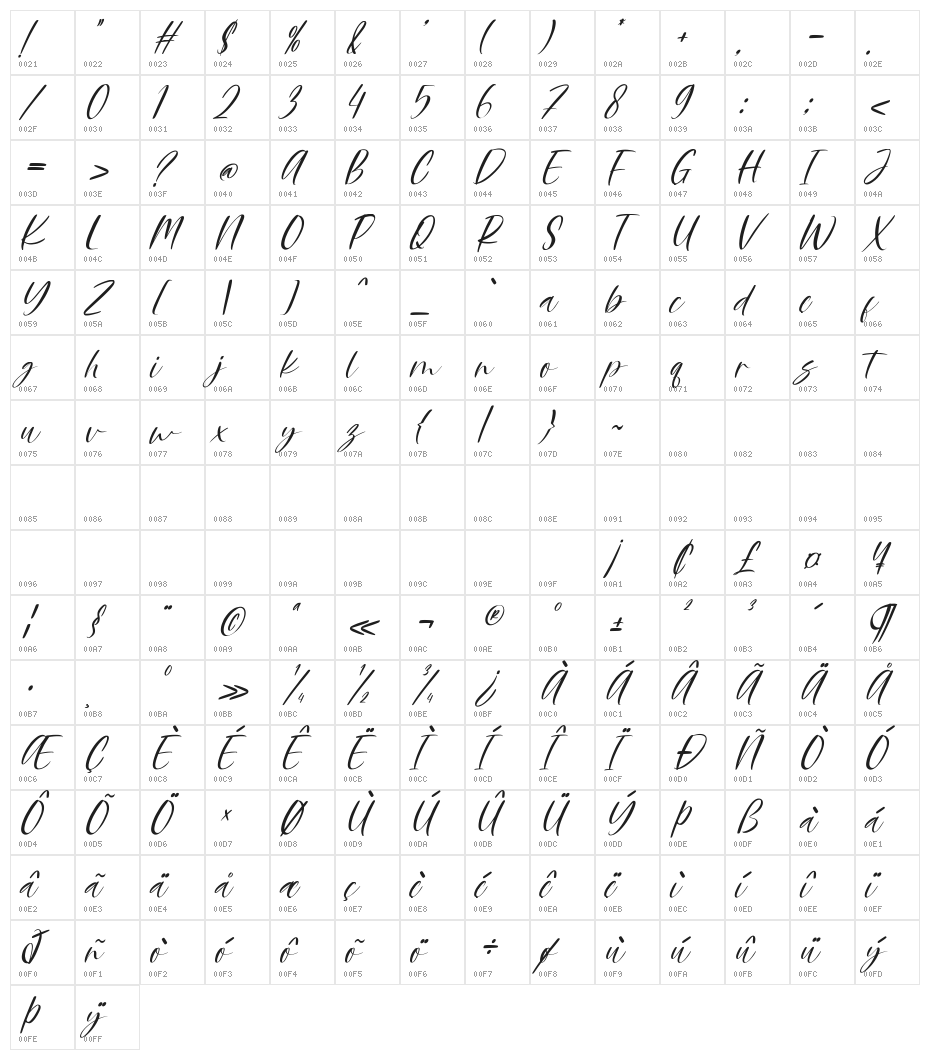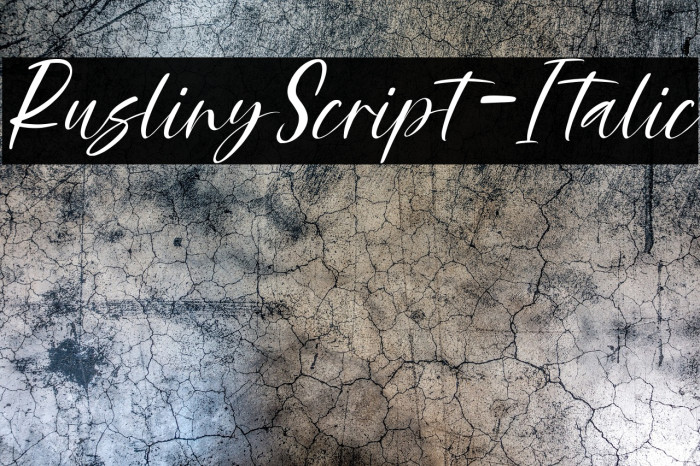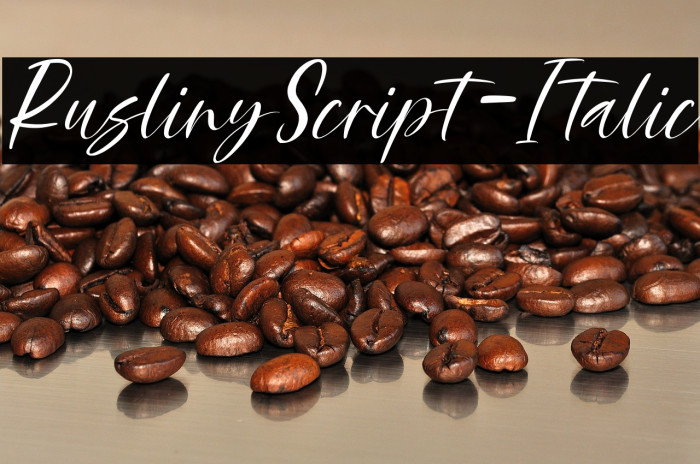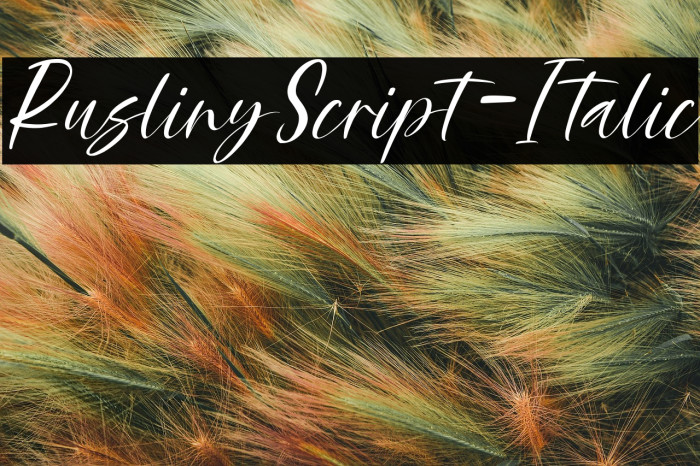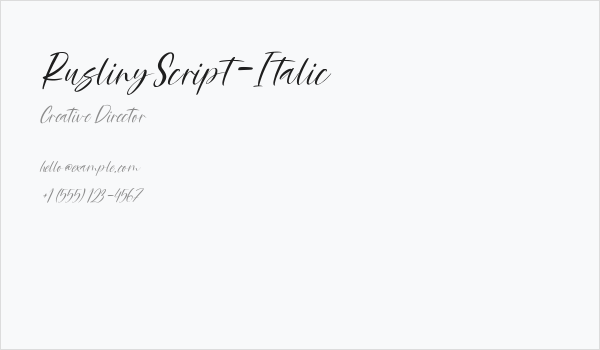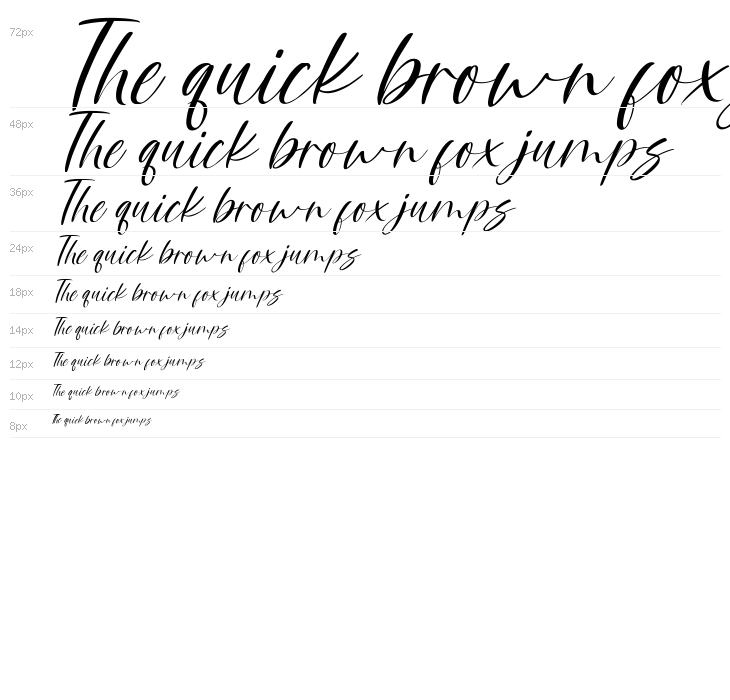
RuslinyScript-Italic Font
RuslinyScript-Italic Description
This elegant script font features fluid, connected strokes that mimic the natural flow of handwriting. The letters are slightly slanted, enhancing the cursive style, and exhibit a consistent rhythm throughout. The uppercase letters are bold and expressive, while the lowercase letters maintain a graceful and smooth appearance. The numerals and special characters complement the overall aesthetic, providing a cohesive look. This font is perfect for adding a personal touch to any design project.
| Overall Style | Elegant, Handwritten |
| Proposed Projects | Ideal for wedding invitations, greeting cards, personal branding, and elegant packaging designs. |